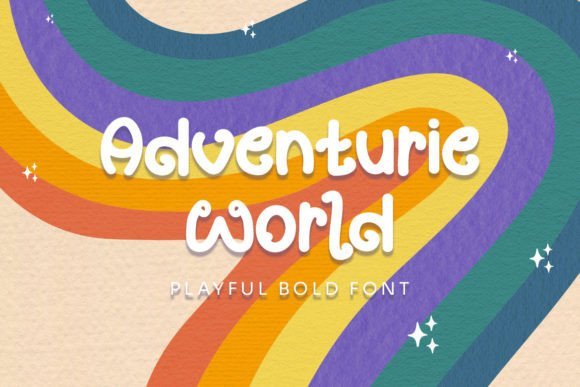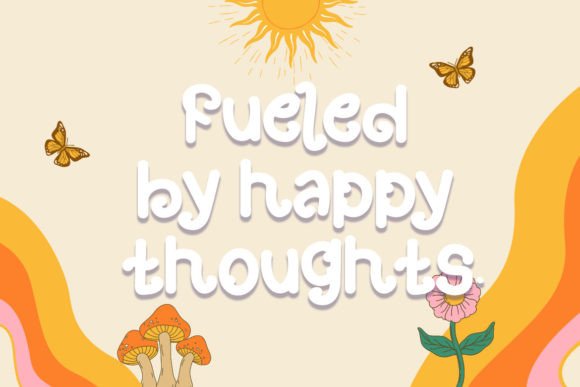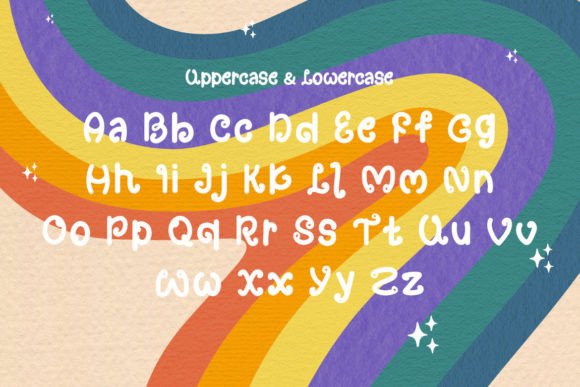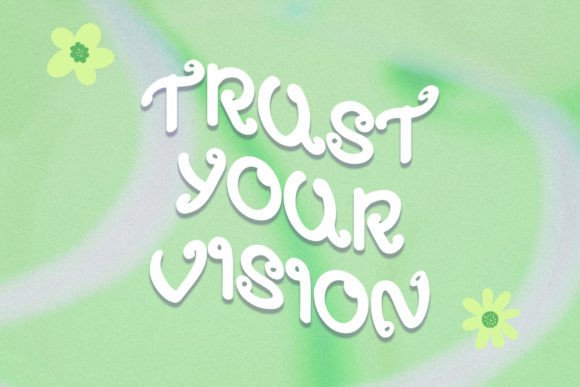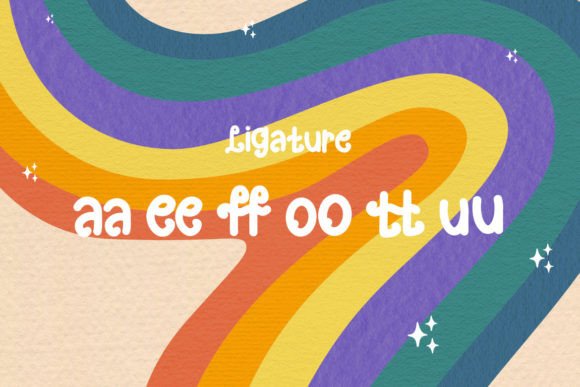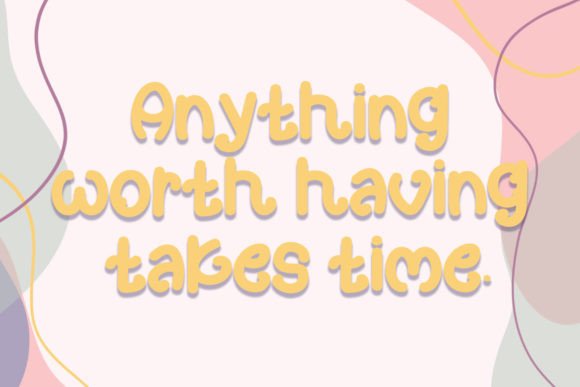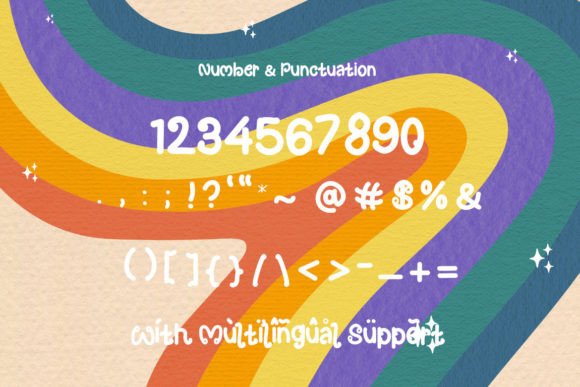
Unleash the Joy of Design with Adventurie World Font
As designers, we’ve all been there – staring at a blank page, trying to come up with the perfect concept to capture the essence of a special occasion. Maybe it’s a birthday party for a loved one, or a wedding invitation for a dear friend. Whatever the case, we want our designs to reflect the joy and excitement of the moment.
That’s where Adventurie World Font comes in – a fun and colorful display font that’s perfect for adding a touch of playfulness to your designs. Its rounded and bubbly letterforms create a sense of happiness and joy, making it an ideal choice for celebratory design projects. With Adventurie World Font, you can bring a smile to your audience’s faces and make your designs truly unforgettable.
Key Features of Adventurie World Font
- Unique Characteristics: Adventurie World Font features a unique blend of adventurous and world-inspired elements, with intricate details and ornate flourishes, making it perfect for creating a sense of excitement and exploration.
Adventurie World Font Review
As a designer, I was excited to dive into the Adventurie World Font and see what it had to offer. ✨ The first thing that caught my attention was the font’s unique and playful style, which is perfect for adventure-themed projects or anything that needs a sense of excitement and exploration.
The font’s design is bold and expressive, making it easy to read and understand, even at smaller sizes. The letterforms are well-crafted, with clean lines and a consistent flow that adds to the overall aesthetic. ✨ The font also includes a range of weights and styles, which makes it versatile and easy to use in various contexts.
- ⚠️ The font may not be suitable for projects that require a more formal or professional tone, as it can come across as too playful or whimsical.
- ⚠️ Some users may find the font’s bold style overwhelming or difficult to read in certain situations.
- ⚠️ The font does not include a wide range of language support, which may limit its use in multilingual projects.
Overall, I think the Adventurie World Font is a great addition to any designer’s toolkit. While it may have some limitations, its unique style and versatility make it a great choice for projects that need a sense of adventure and excitement.
Use the Adventurie World Font for headings and titles to add a touch of adventure to your designs.
Combine it with other fonts to create a visually appealing contrast.
Adventure travel and outdoor brands
Fantasy and science fiction novels
Travel and tourism websites
Video game and animation projects
What is the character set for the Adventurie World Font?
The Adventurie World Font includes a comprehensive character set, covering Latin, Cyrillic, and Greek alphabets, as well as a range of punctuation and symbol characters. The font also includes support for OpenType features, such as ligatures and stylistic sets, which can be accessed in compatible design software.